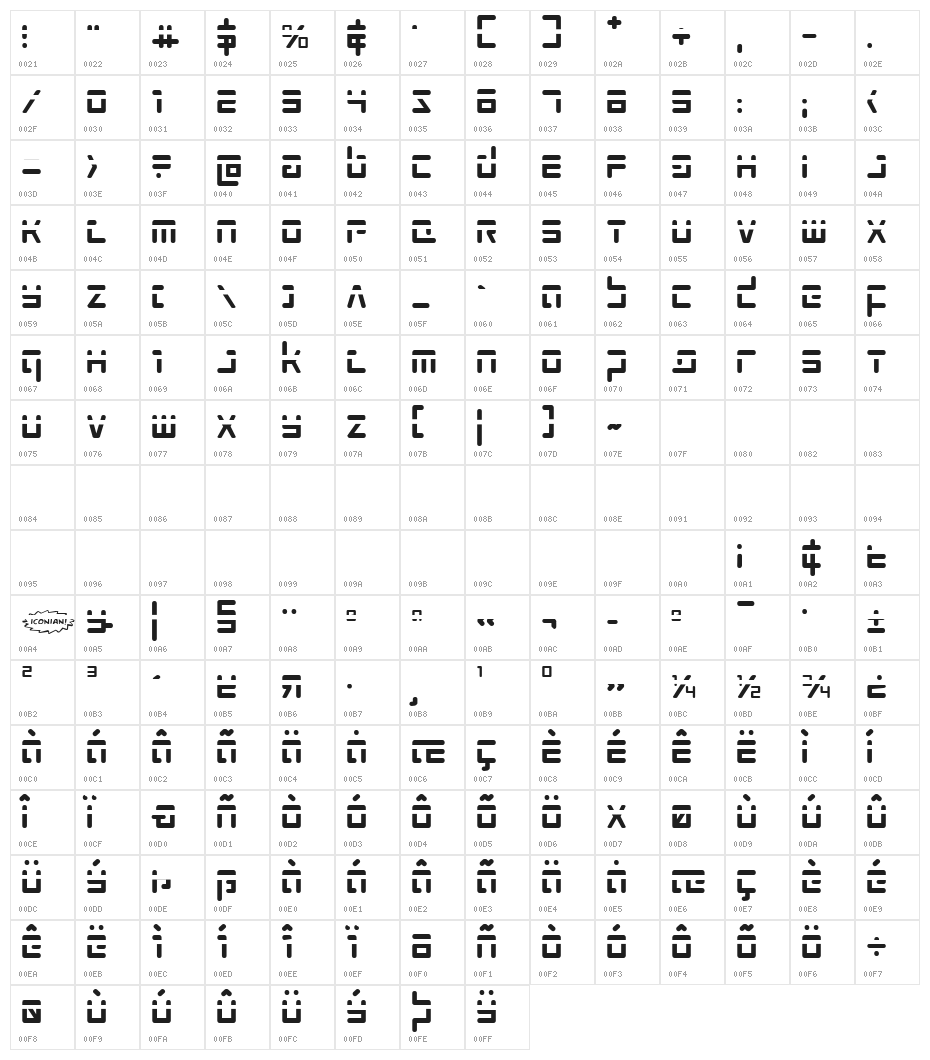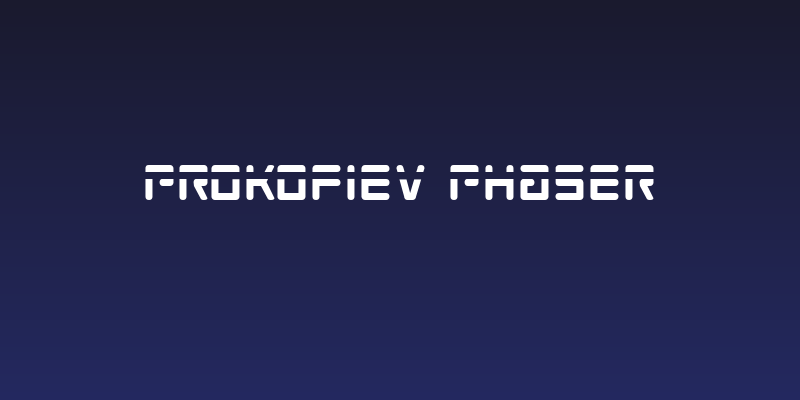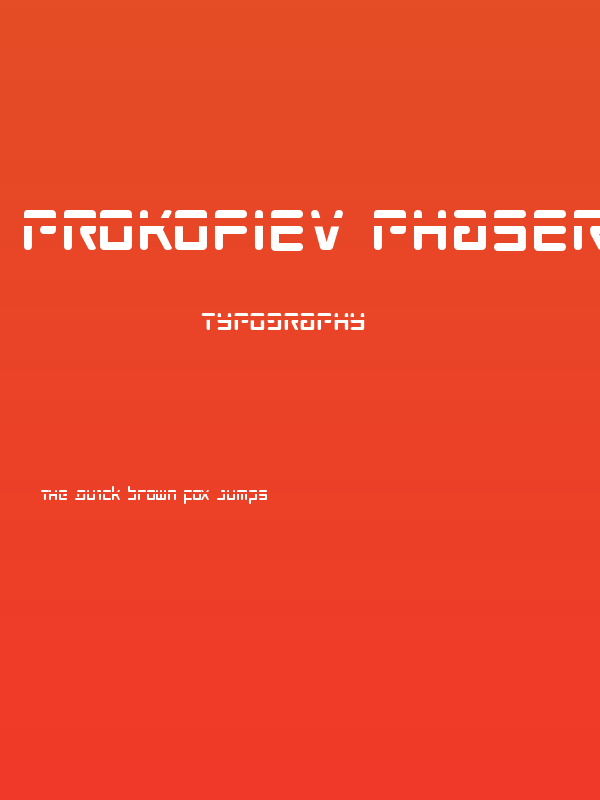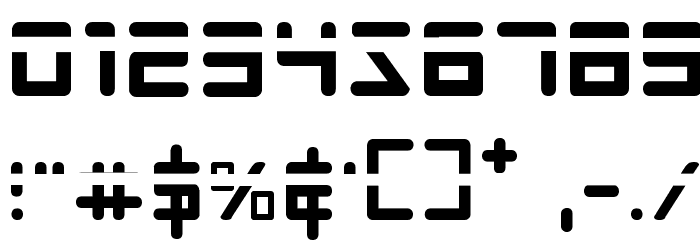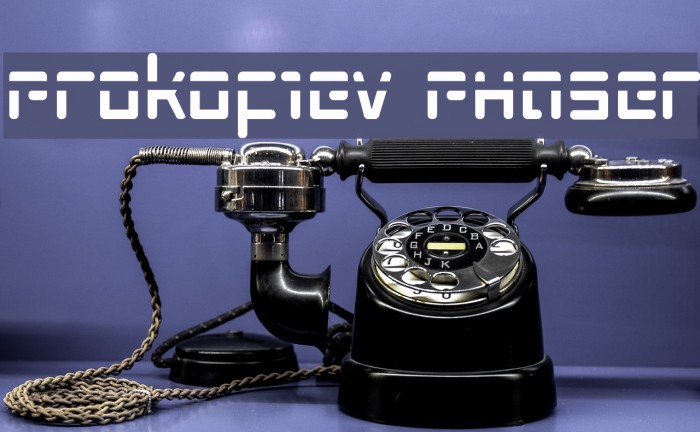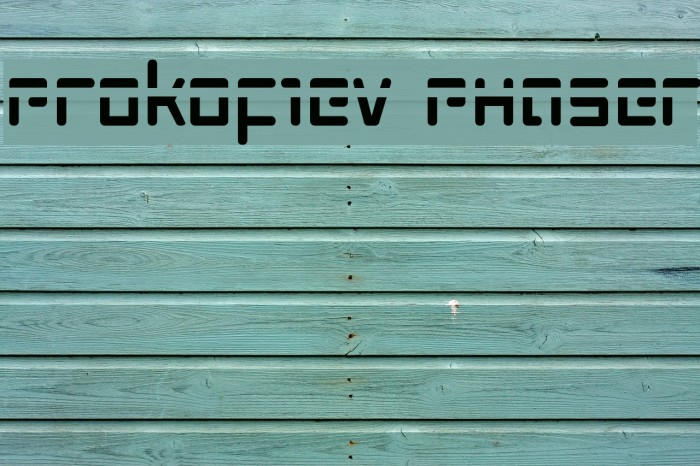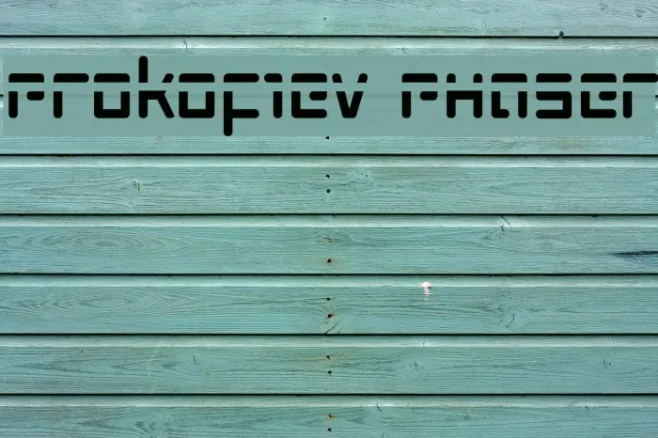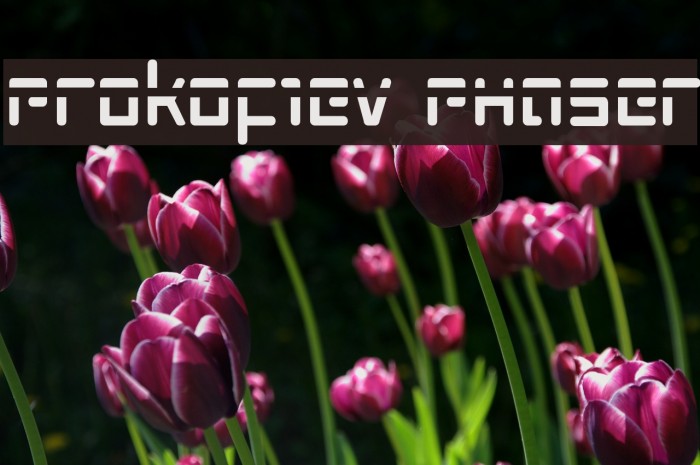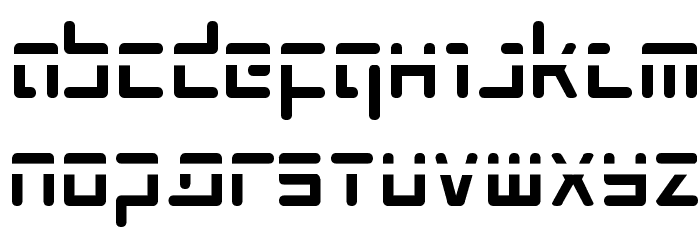
Prokofiev Phaser Font
Prokofiev Phaser Description
This font features a futuristic and geometric design, characterized by its blocky and modular letterforms. Each character is constructed with a consistent stroke width, giving it a uniform appearance. The font's design is reminiscent of digital or sci-fi aesthetics, with a focus on simplicity and readability. The uppercase and lowercase letters maintain a similar structure, enhancing the cohesive look. Numerals and special characters are designed to match the overall style, ensuring versatility across different uses. The font's unique style makes it suitable for projects that require a modern and tech-inspired look.
| Use Case | Headlines, Logos, Digital interfaces |
| Proposed Projects | Ideal for sci-fi themed designs, tech branding, digital interfaces, and modern posters. |